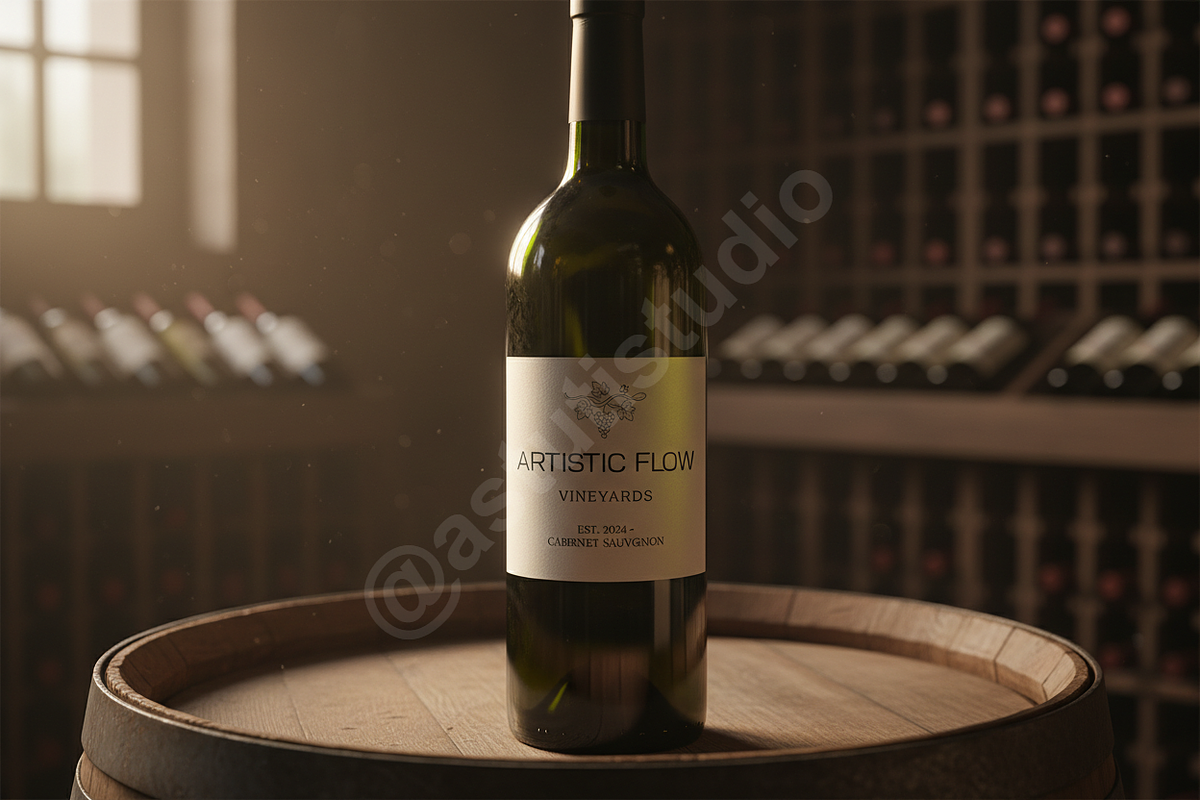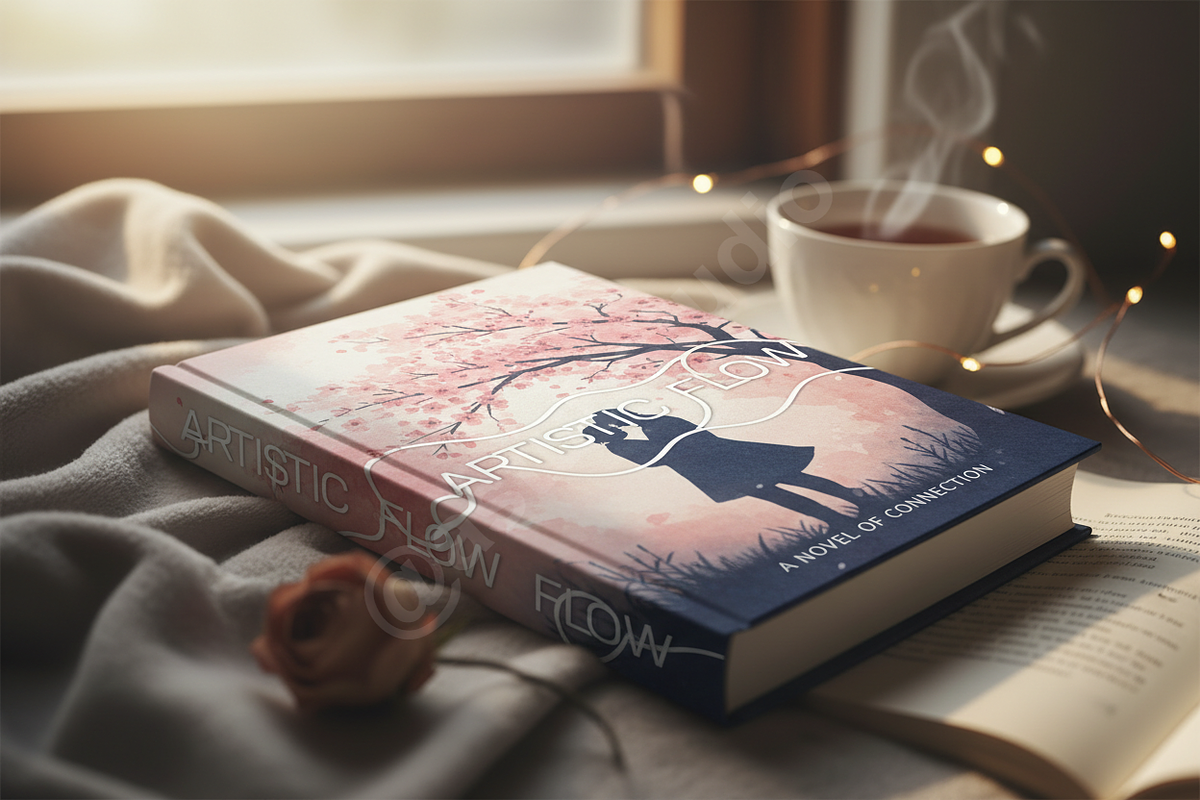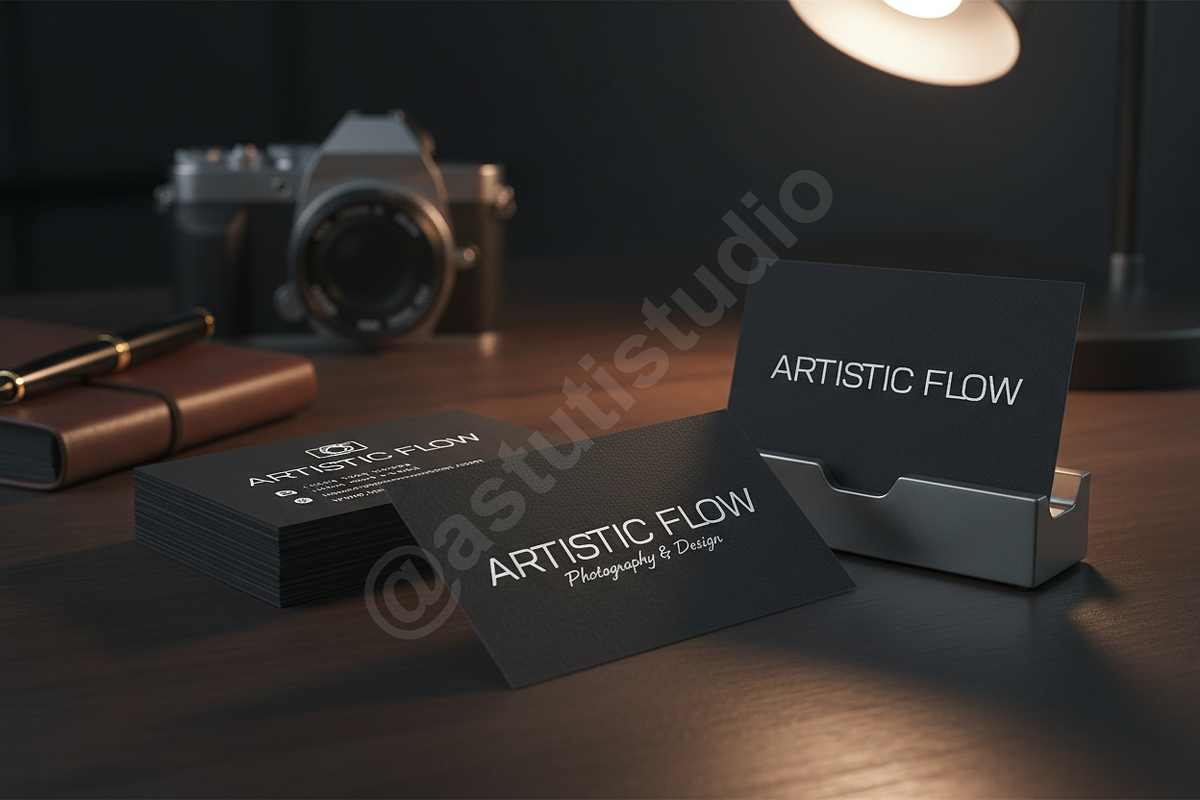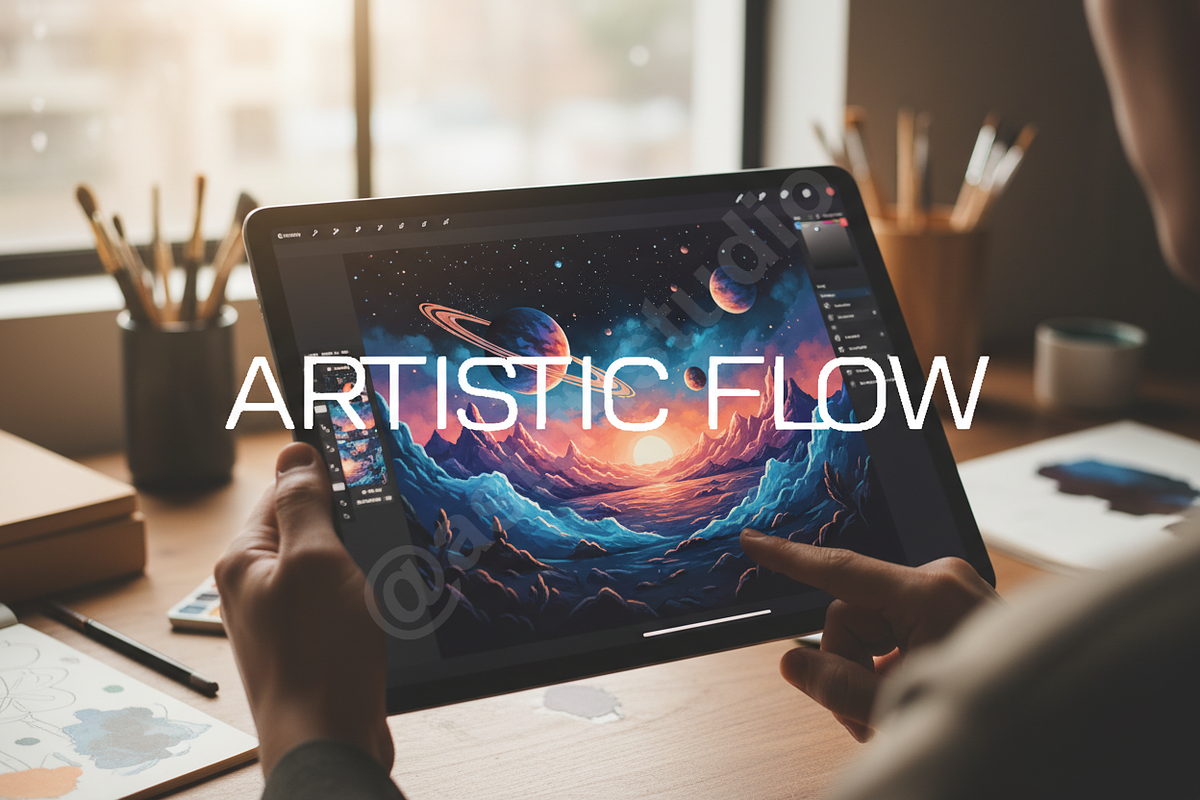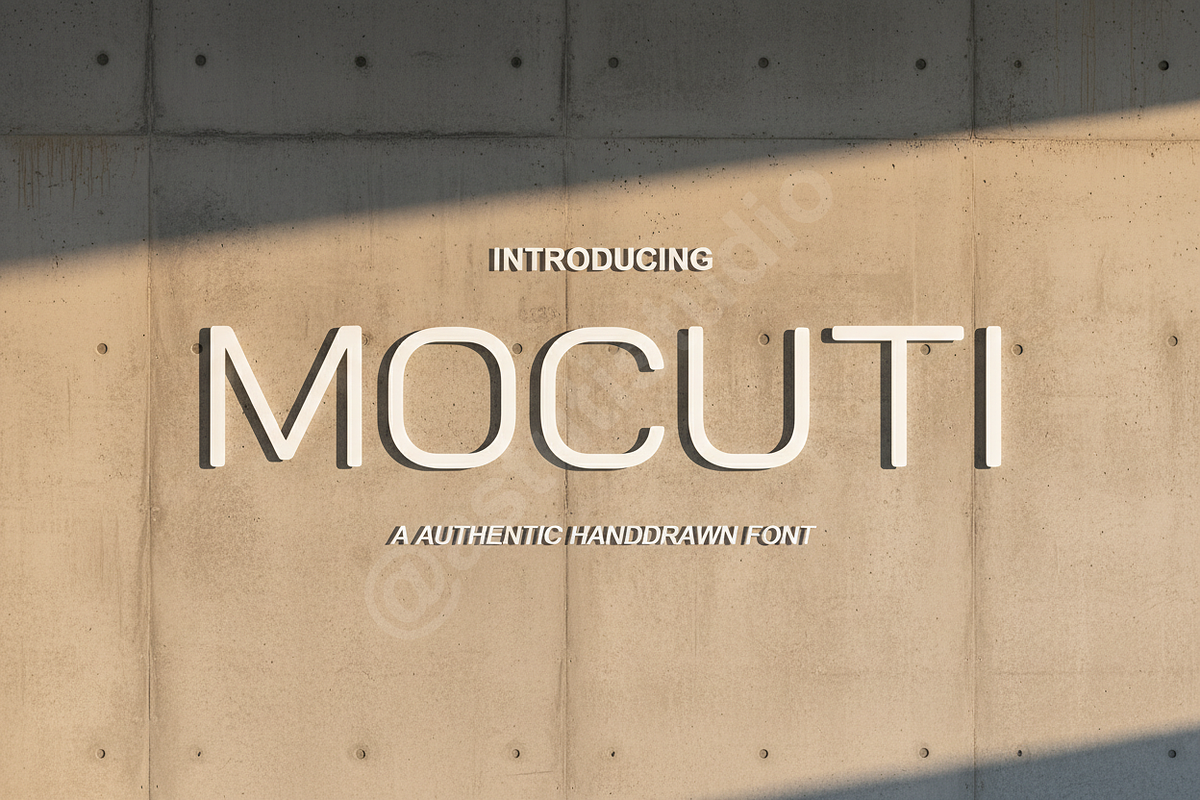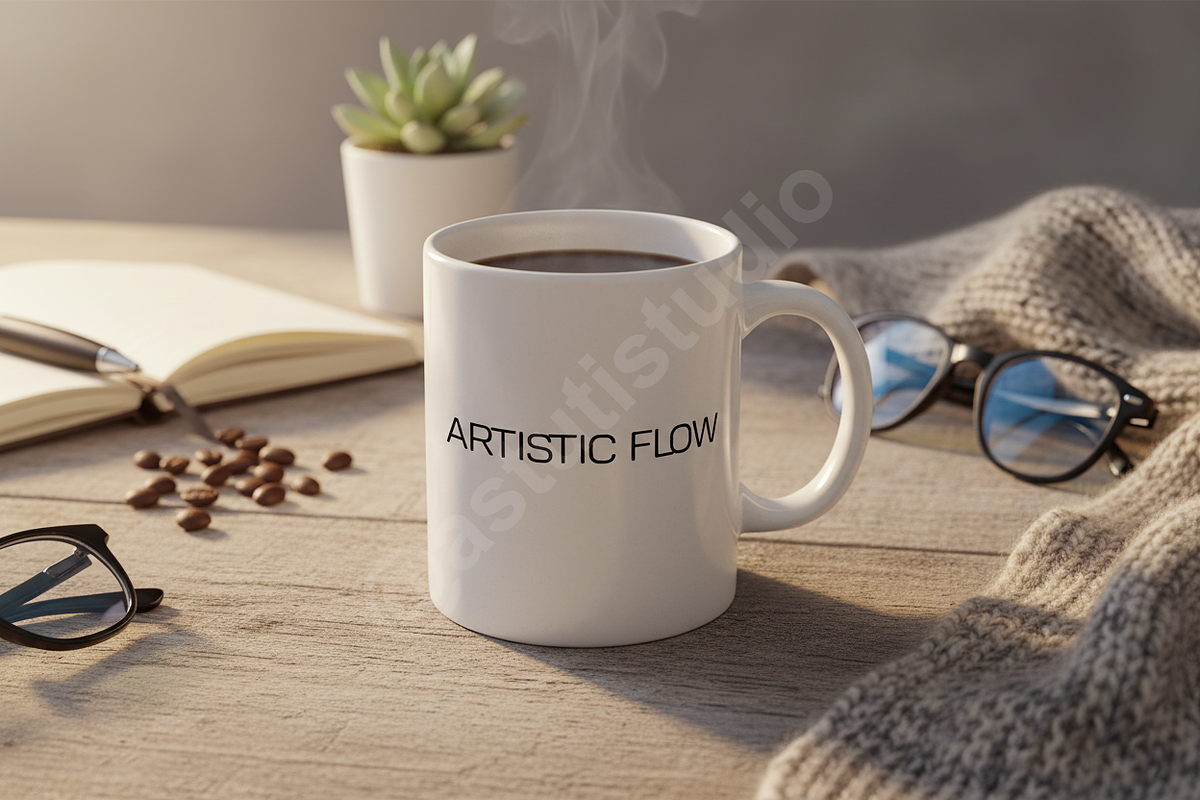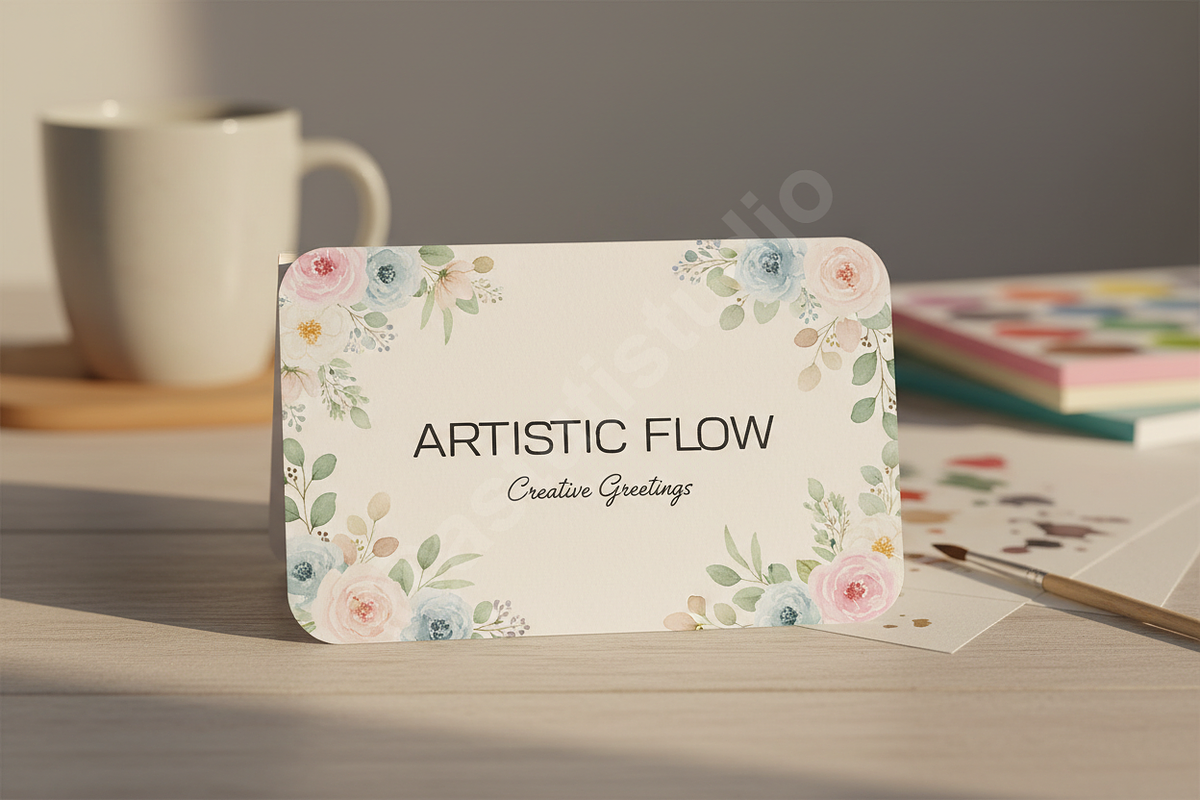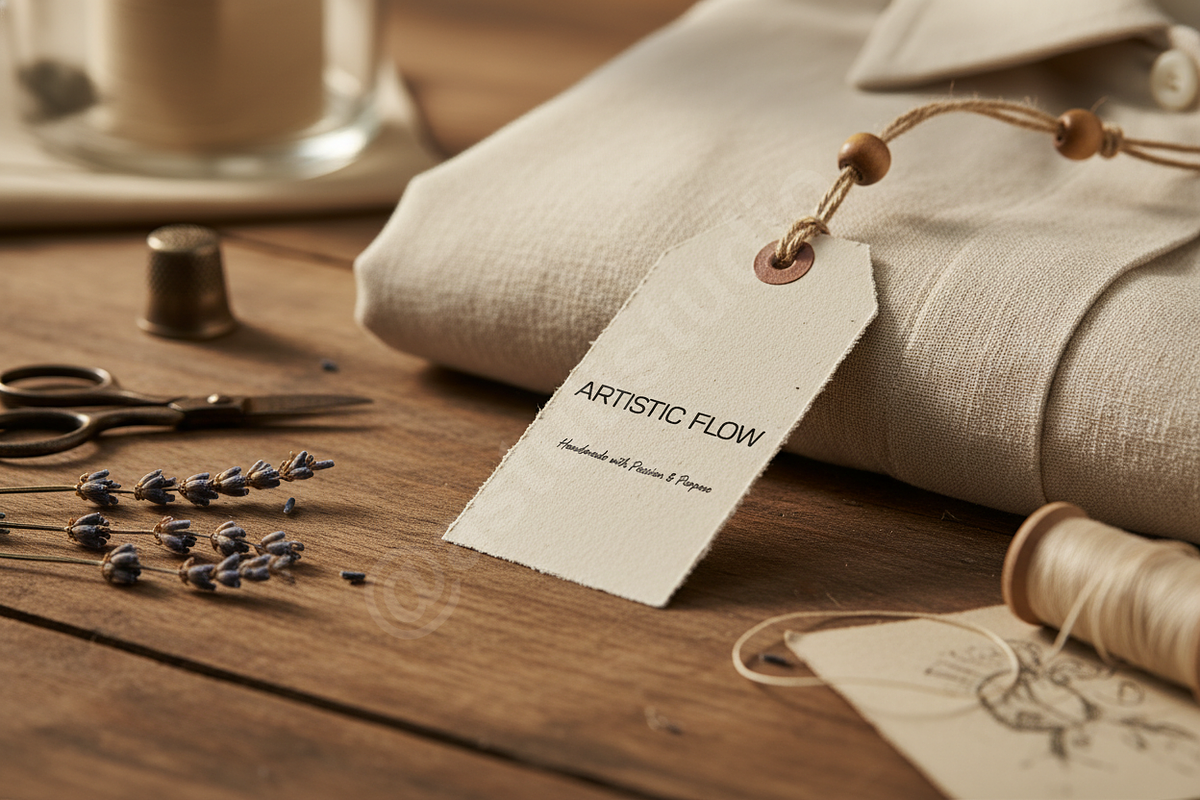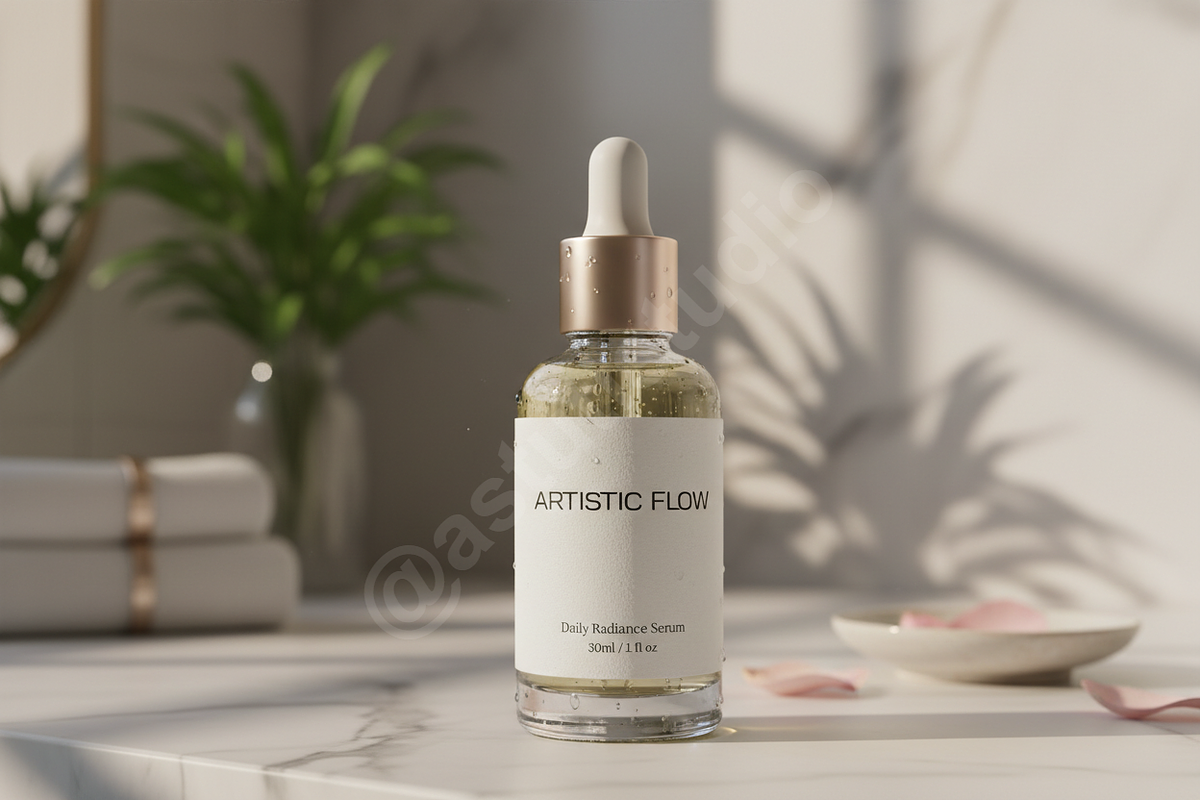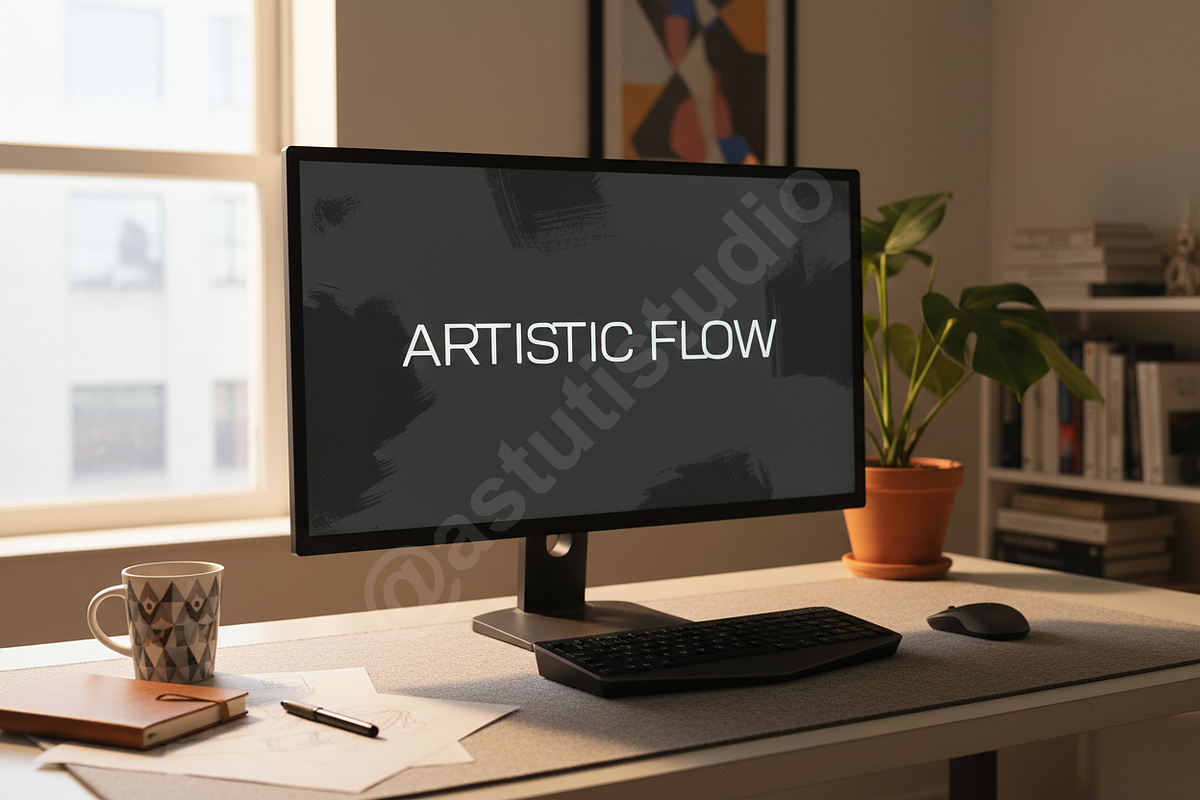
Mocuti | Modern Elegant Serif Typefa
INTRODUCTION
Introducing Mocuti, a premium serif typeface designed for the sophisticated aesthetic. With its balanced proportions and refined curves, Mocuti brings an air of quiet luxury to any creative project. It is meticulously crafted for high-end branding, editorial layouts, and impactful social media presence. Whether you are designing a high-fashion magazine or a boutique logo, Mocuti offers the perfect blend of timeless tradition and contemporary flair.
- Timeless elegance with a modern edge
- High contrast strokes for a luxurious feel
- Extensive OpenType features including ligatures and alternates
- Optimized for both display and body text
- Multilingual support for global versatility
- Clean, legible geometry at any size
- A variety of stylistic alternates for custom character flourishes